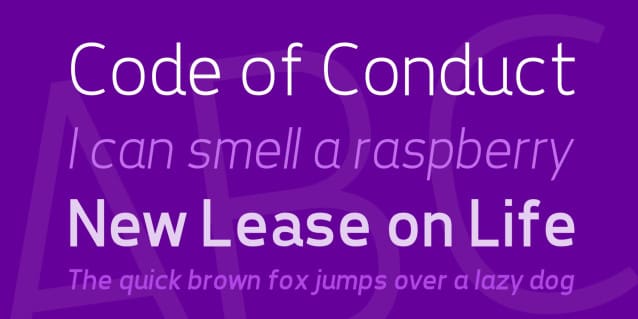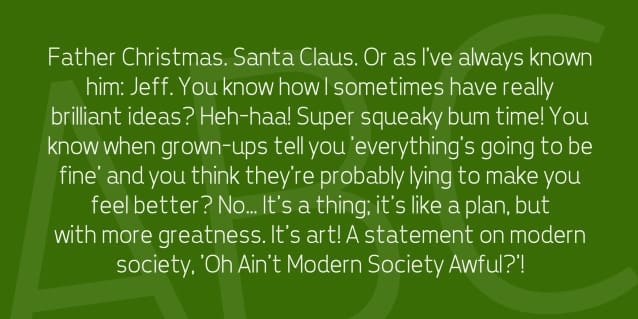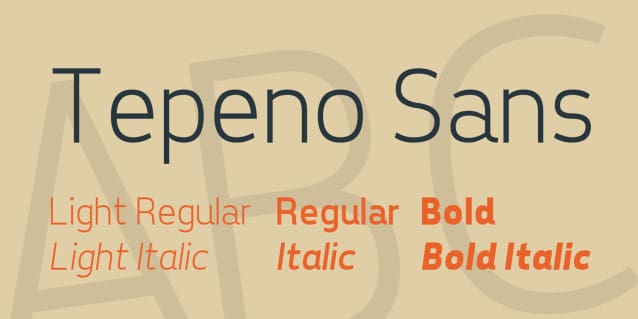
Tepeno Sans Font Family a bold statement with our latest sans-serif font. With its clean lines and modern appeal, this font is sure to turn heads and leave a lasting impression. Perfect for headlines, logos, and any design that demands attention. It is both functional and stylish, making it a versatile choice for a wide range of design projects.
Tepeno Sans Font Family